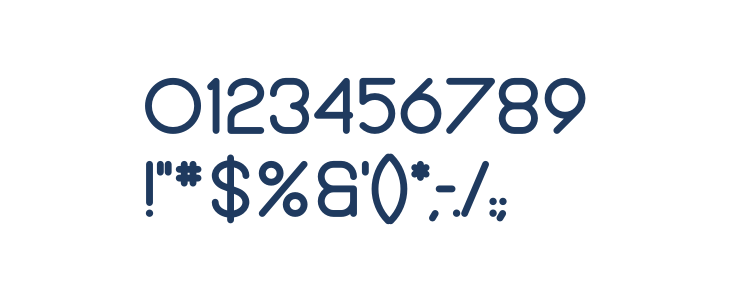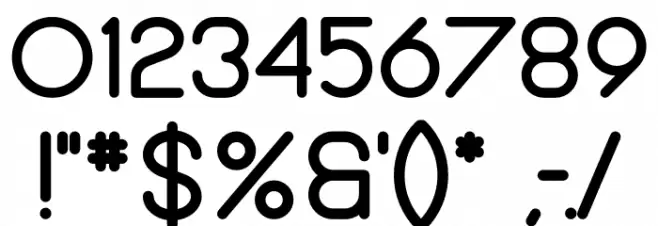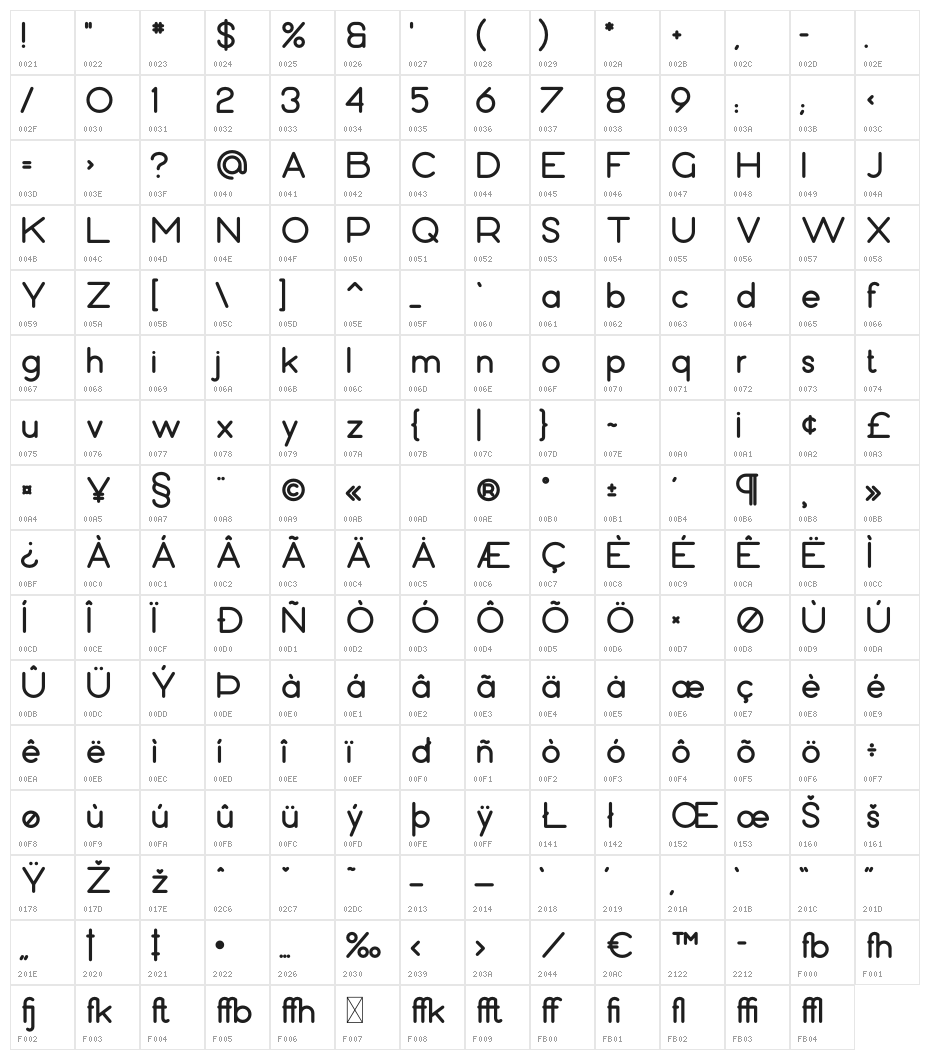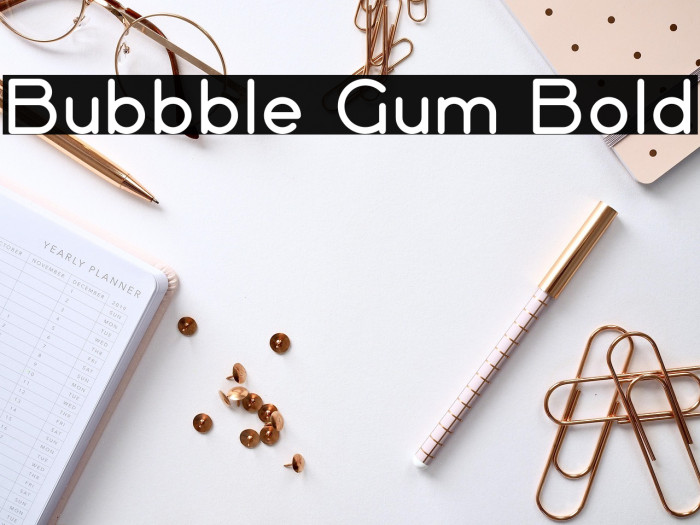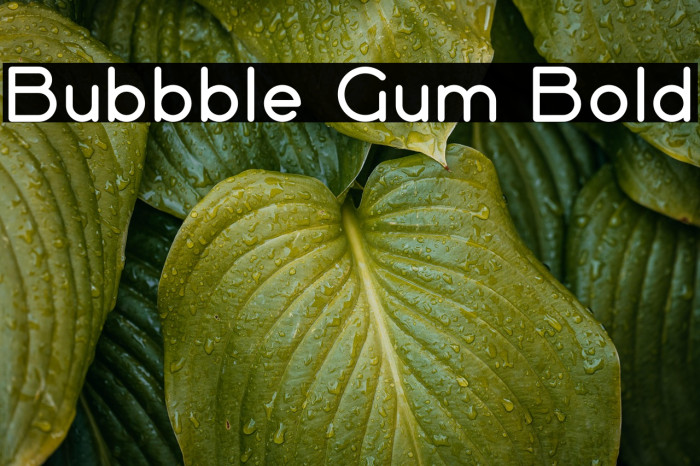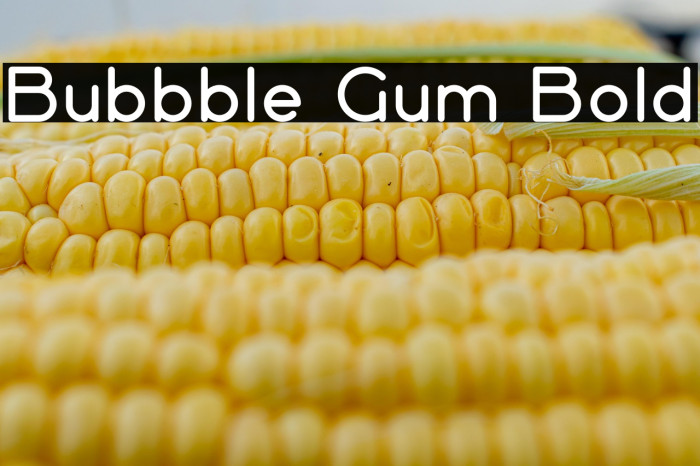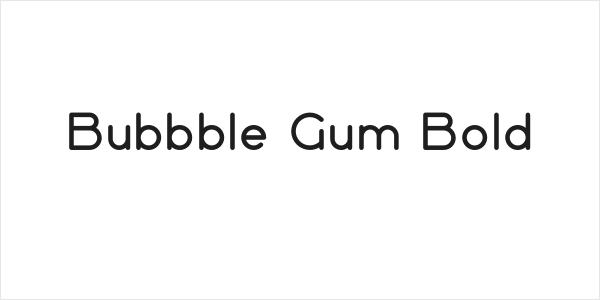
Bubbble Gum Bold Font
Bubbble Gum Bold Description
This font features a playful and rounded design, characterized by its smooth curves and uniform stroke width. The letters are evenly spaced, providing a clean and approachable appearance. The uppercase and lowercase letters maintain a consistent style, with rounded terminals and a friendly aesthetic. Numbers and special characters follow the same design principles, ensuring a cohesive look across all text. This font is ideal for projects that require a fun and modern touch, such as children's books, playful branding, or casual invitations.
| Use Case | Headlines, Logos, Casual Text |
| Proposed Projects | Ideal for children's books, playful branding, casual invitations, and modern designs. |